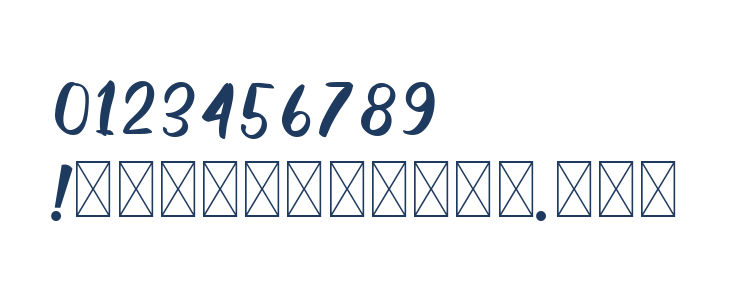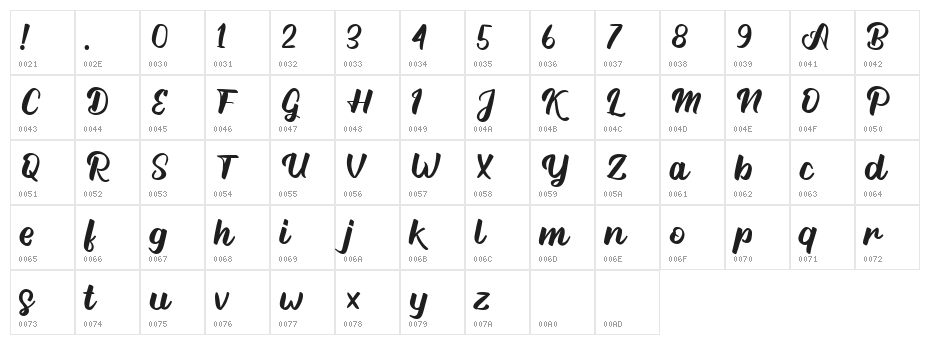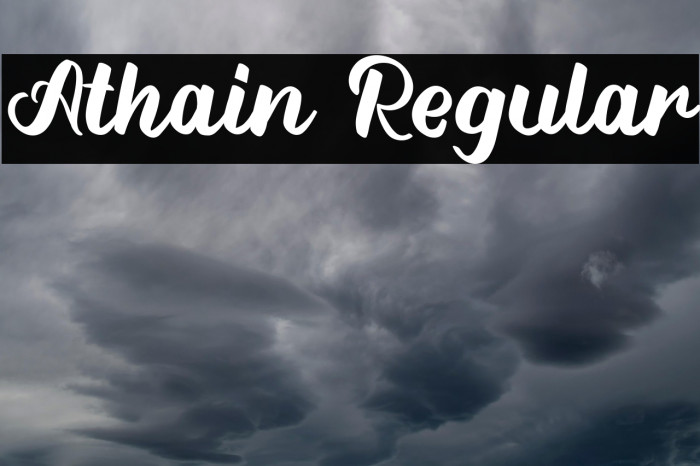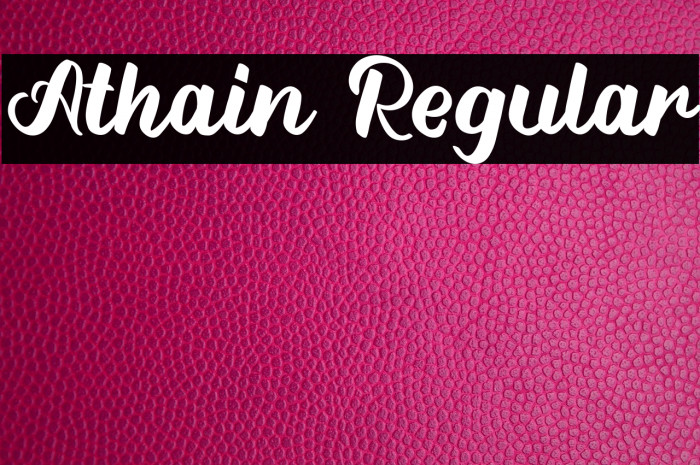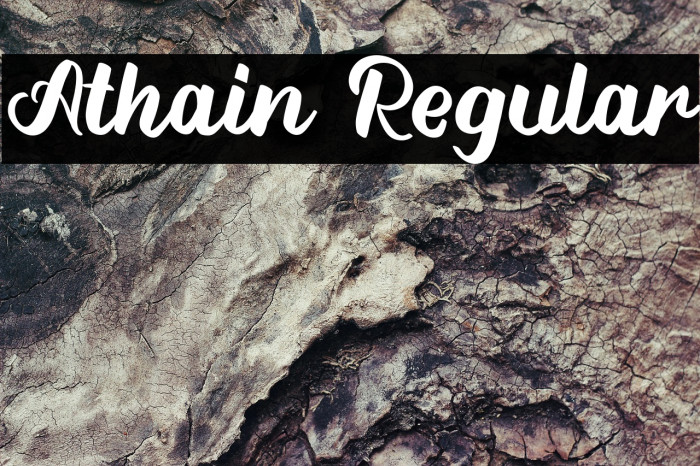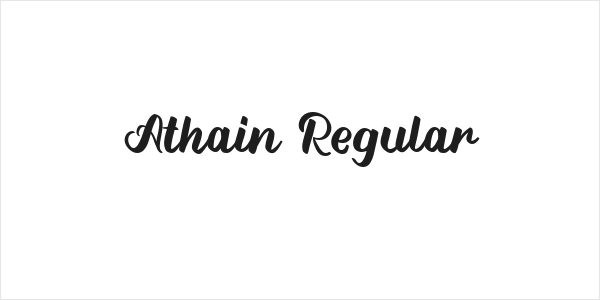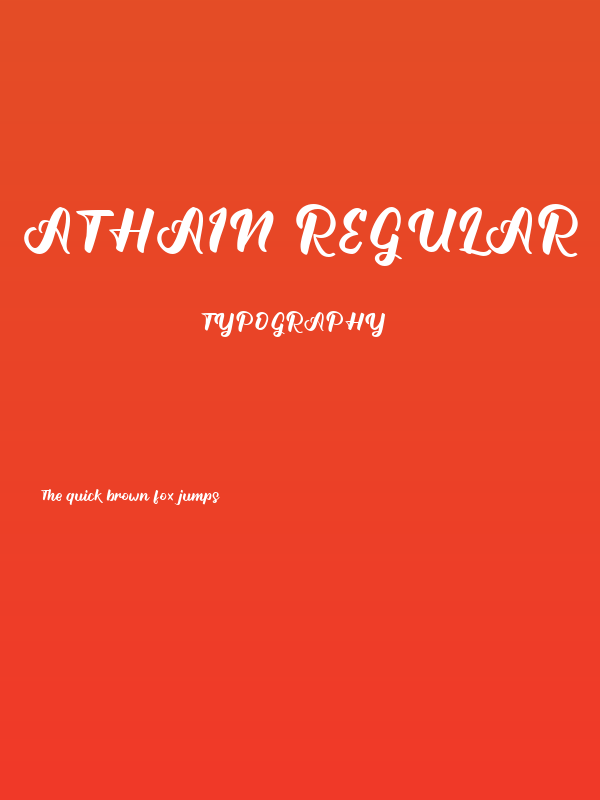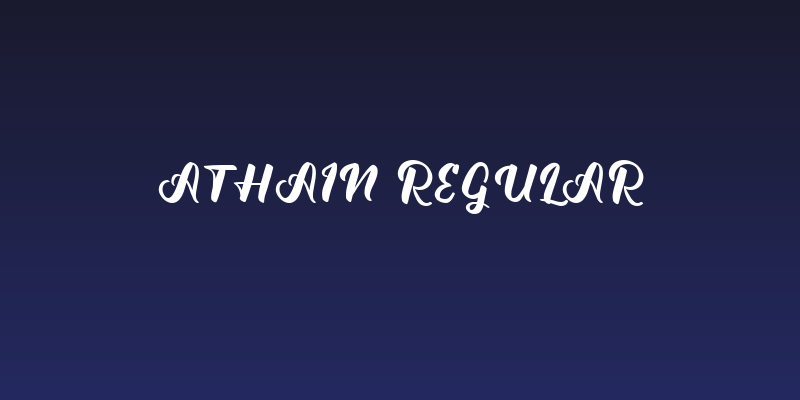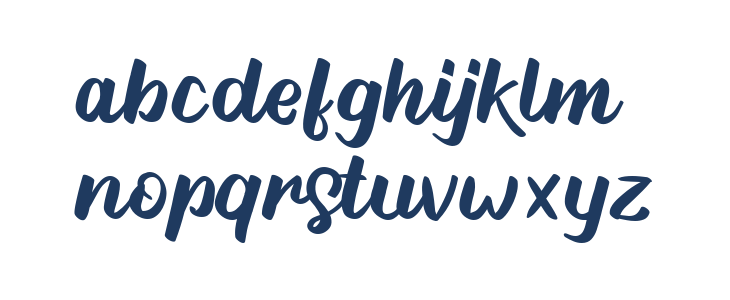
Athain Regular Font
Athain Regular Description
This font features a bold and expressive script style, characterized by its fluid and dynamic strokes. The uppercase letters exhibit a sense of elegance with their sweeping curves and distinctive flair, while the lowercase letters maintain a consistent rhythm and flow. The numerals are designed with a similar boldness, ensuring readability and style. The special characters complement the overall aesthetic, adding versatility to the font. This typeface is ideal for projects that require a touch of sophistication and creativity.
Use CaseLogos, Headlines, Invitations
Proposed ProjectsIdeal for branding, invitations, greeting cards, and creative design projects.